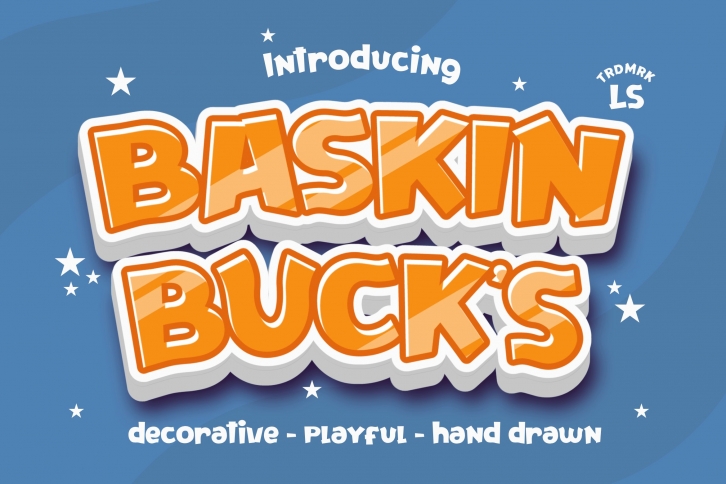
Baskinbucks is a beautiful font that was designed by Gumacreative. It's a great choice for designers and creatives who need such a font. It was released on December 22, 2020 and the file size is 11.96 MB. Baskinbucks may give a more youthful, expressive and casual look to your project. It is a very beautiful, refined, elegant, and high-quality font.